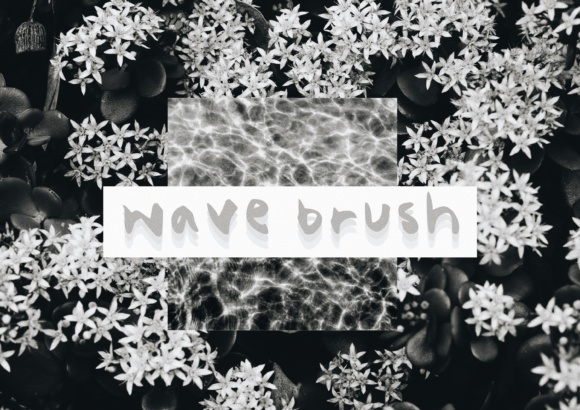
Wave Brush Font
About Wave Brush Font
“A cute hand-written font, made with a thick brush pen. Being one of the first fonts I’ve made, it’s one of my personal favourites. Wave Brush goes hand-in-hand with my other font “wave blocks” font.”